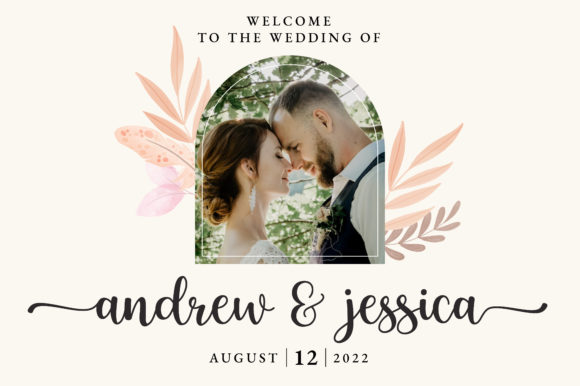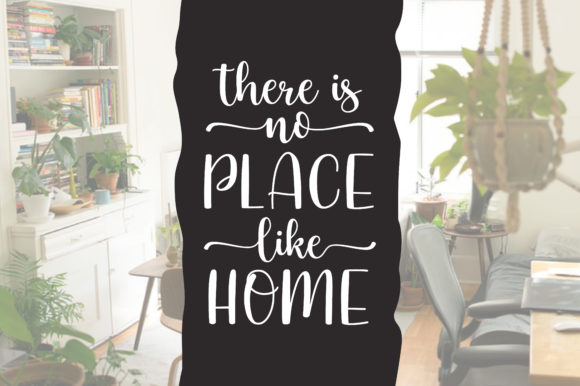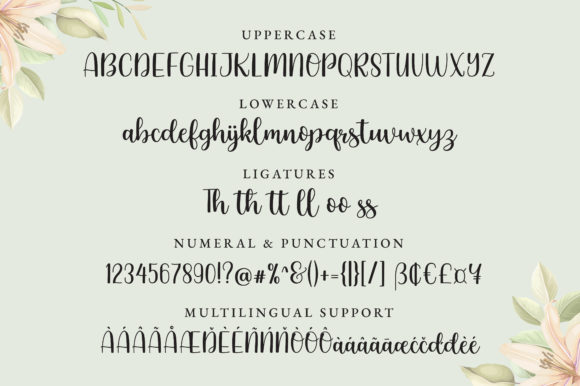
About Melissa Font
“Melissa” is an elegant and graceful script font that exudes sophistication and charm. Its stylish letterforms and delicate strokes make it a versatile choice for a wide range of design projects.
With its timeless and dainty appearance, “Melissa” is well-suited for various applications. Its graceful curves and balanced characters make it perfect for logo and branding projects. Whether you’re creating a brand identity, business cards, or packaging, this font adds a touch of elegance and class to your designs.
“Melissa” also shines in label and photography projects. Its refined and stylish look can enhance product labels, adding a sense of luxury and sophistication. When used in photography watermarks, the font’s elegant script adds a personalized touch while maintaining a professional aesthetic.
Special events such as weddings, parties, and celebrations can benefit from the charm of “Melissa.” The font’s flowing and dainty style can be incorporated into invitations, place cards, and other event materials, creating a cohesive and stylish look for the occasion.
The inclusion of PUA encoding means you have easy access to all of the font’s glyphs and swashes. This feature allows you to customize and embellish your designs with a variety of stylistic options, ensuring that your creative projects truly stand out.
In summary, “Melissa” is a stylish and versatile script font that can elevate your designs with its elegance and grace. Its wide range of applications makes it a valuable addition to your font library, whether you’re working on branding, labels, special events, or other projects that call for a touch of sophistication.